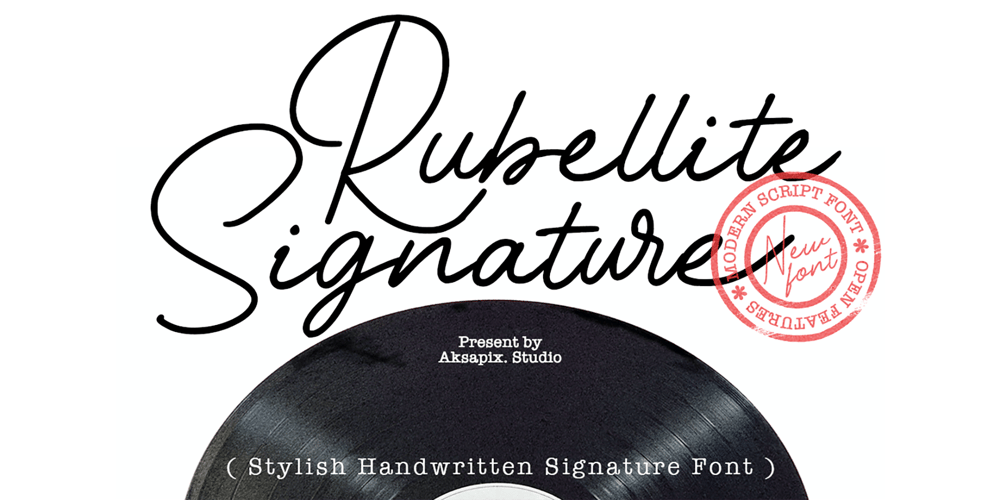
Rubellite Signature Font Family was designed by Fajargio and published by Aksapix Studio. Rubellite Signature contains 1 styles and family package options. Rubellite – Stylish Handwritten Signature Font is a modern signature font. With its exclusive design, this font is suitable for a variety of design purposes, from company logos to music festival posters, album covers, greeting cards, social media content, and more.Features: Uppercase & Lowercase Punctuation & Numbers Stylistic Alternates: Enhance your designs with the option to choose from stylistic alternates, allowing you to experiment with different letterforms and create a unique visual impact. Standard Ligatures: The inclusion of ligatures adds a seamless and natural flow to your text, ensuring a smooth and aesthetically pleasing look. Compatible with Mac and Windows OS Multilingual Support With Rubellite, each of your design projects will receive a unique and classy touch, ensuring that your message and brand identity are conveyed with style. Utilize this font to bring sophistication to every visual design you create.